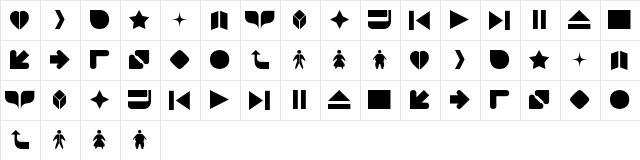
2TheLeft Dingbats Regular
Design Context for 2TheLeft Dingbats Typeface
2TheLeft Dingbats is a composed and adaptable typeface that performs quietly and consistently across a wide range of design contexts.